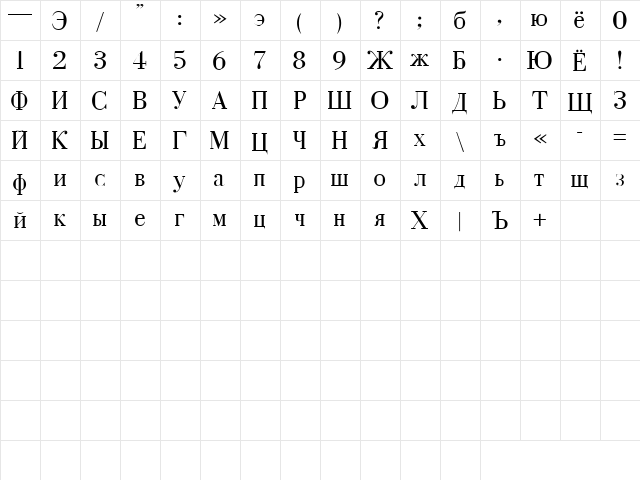
95 Regular
Design Context for 95 Typeface
95 takes a measured approach to typography — its balanced proportions and neutral character make it a reliable workhorse for both digital and print work.